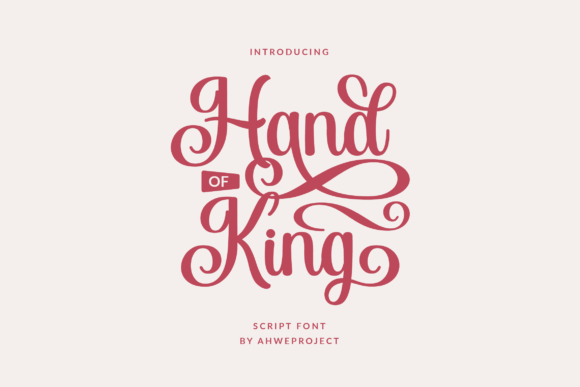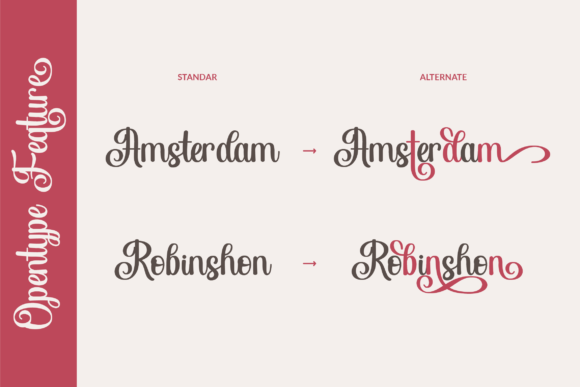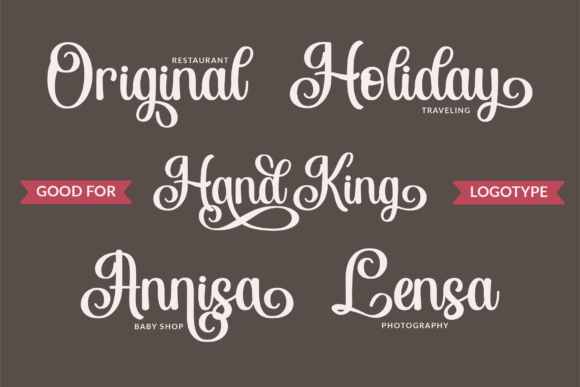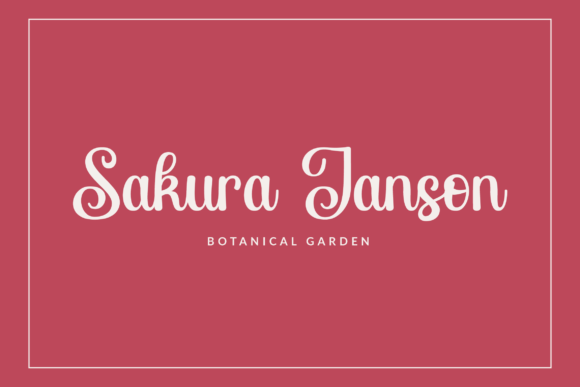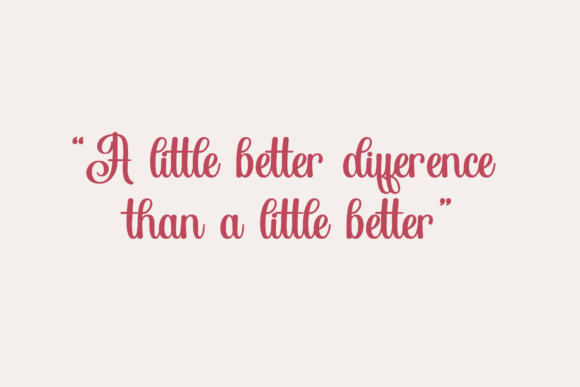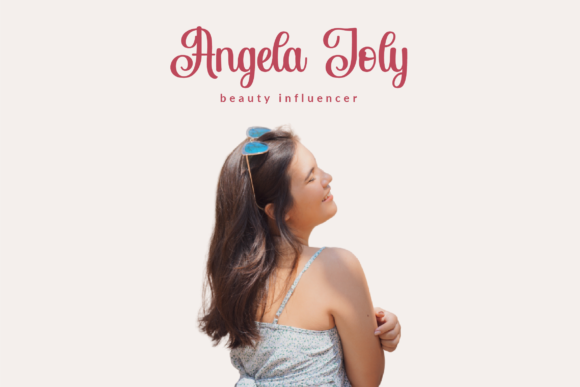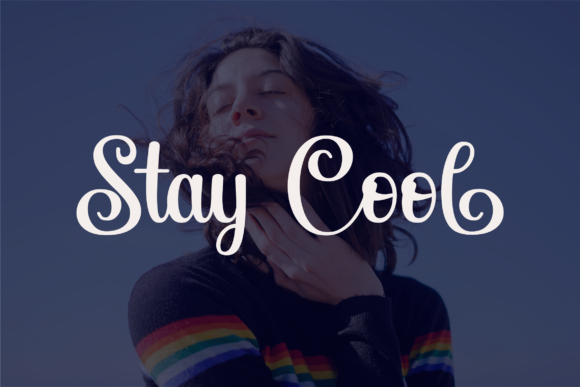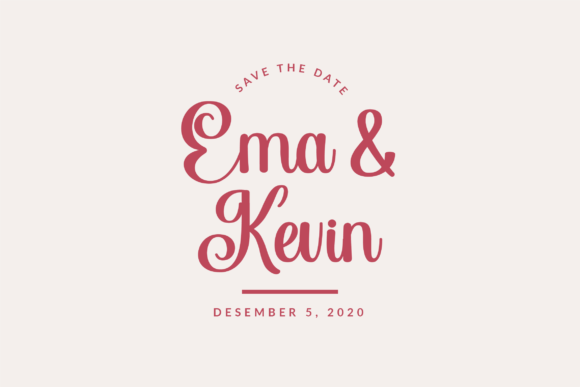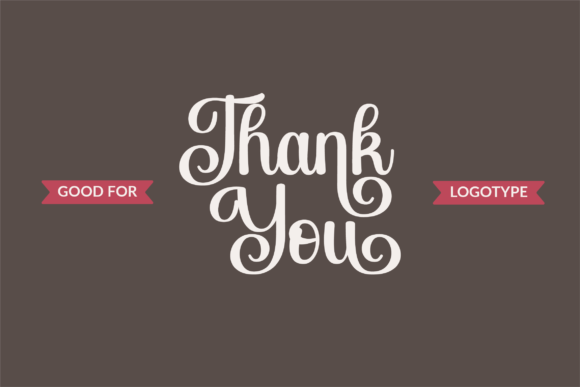
Hand of King Font
About Hand of King Font
Hand of King is a beautiful and sweet handwritten font. It is fresh, clean, and elegant. Incredibly versatile, this font fits a wide pool of designs, elevating them to the highest levels. It looks amazing on thank you cards, quotes, wedding invitations, greeting cards, business cards, logos and any other design that requires a handwritten touch.